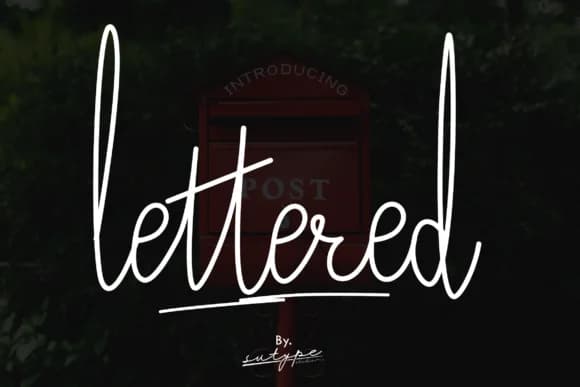
You're designing a wedding invitation suite when you realize most scripts feel either too modern or too stiff for what you're envisioning. Enter Lettered Font by Sutype, a signature-style script that moves with genuine character rather than artificial smoothness. The flowing letterforms carry weight and intention, giving your work that hand-drawn quality without sacrificing legibility or visual polish.
This font excels wherever handwritten charm strengthens the message. Wedding invitation suites, boutique beauty product labels, luxury greeting card designs, and personalized monogram projects all benefit from its natural rhythm and character. The brush-stroke texture reads authentically even at smaller sizes, which matters when you're working on Etsy product labels or detailed packaging where the type needs to hold up visually. Social media headers and custom business branding also lean into this font's strengths, especially when you want personality that doesn't shout.
The letterforms scale beautifully across sizes, giving you control over hierarchy and emphasis without needing additional typefaces. Set a single headline or compose longer passages of script text, and the letterforms stay readable and intentional throughout. Available on Creative Fabrica, Lettered Font deserves a spot in your script collection.
Lettered Font is a script font that shines as a display or heading face. Pair it with a clean sans-serif or serif font for body text β the contrast creates a clear hierarchy while the two styles stay balanced and easy to read.
Lettered Font